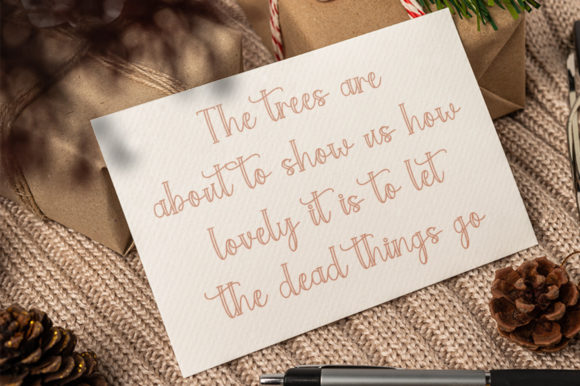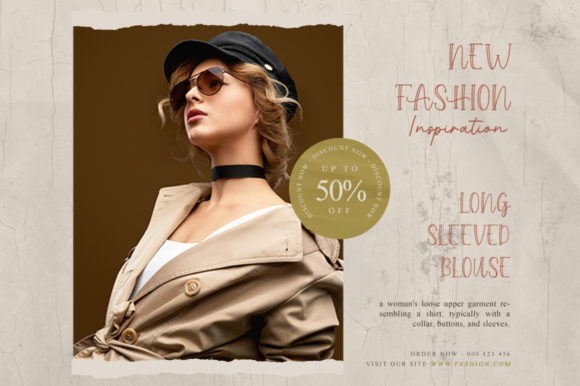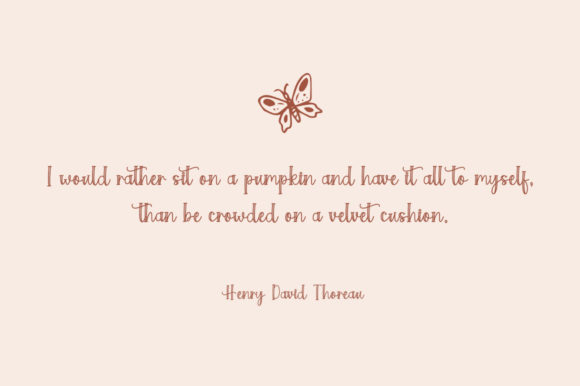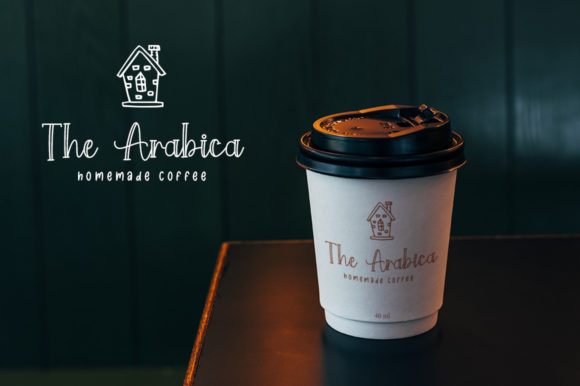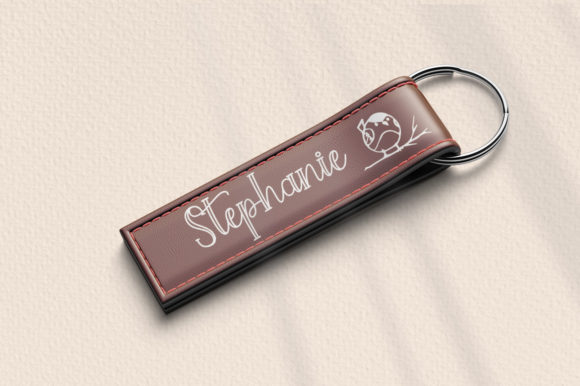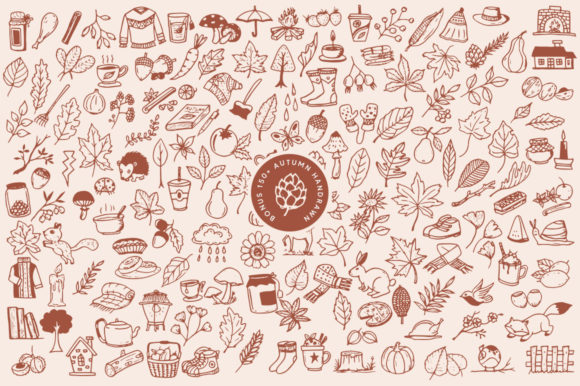
Introducing Autumn Garden Font: Add a Lovely Touch to Your Designs
Are you looking for a font that can add a playful and cool touch to your designs? Look no further than the Autumn Garden Font. This amazing display font is perfect for cartoon-related designs, children’s games, and any creation that requires a lovely and whimsical feel. In this article, we’ll explore the features and benefits of the Autumn Garden Font and how it can elevate your designs to the next level.
What is Autumn Garden Font?
Autumn Garden Font is a modern display font that is designed to bring a sense of playfulness and fun to your designs. Its unique and quirky style makes it perfect for designs that require a personal touch. The font is carefully crafted with beautiful lines and curves, making it highly legible and easy to read.
Key Features of Autumn Garden Font
• Playful and Cool Design: The Autumn Garden Font has a unique and playful design that is sure to grab attention. Its cool and whimsical style makes it perfect for designs that require a fun and lively feel.
• Highly Legible: The font is carefully designed with beautiful lines and curves, making it highly legible and easy to read.
• Perfect for Cartoon-Related Designs: The Autumn Garden Font is perfect for cartoon-related designs, children’s games, and any creation that requires a lovely and whimsical feel.
Benefits of Using Autumn Garden Font
Using the Autumn Garden Font can bring numerous benefits to your designs. Here are some of the advantages of using this amazing font:
• Adds a Personal Touch: The Autumn Garden Font can add a personal touch to your designs, making them stand out from the crowd.
• Increases Engagement: The playful and cool design of the font can increase engagement and grab attention.
• Perfect for Branding: The font is perfect for branding and can be used to create a unique and memorable brand identity.
• Versatile: The Autumn Garden Font can be used for a wide range of designs, from children’s games to adult-oriented creations.
Design Ideas Using Autumn Garden Font
The Autumn Garden Font can be used for a wide range of designs. Here are some design ideas to get you started:
• Children’s Games: Use the Autumn Garden Font to create fun and engaging children’s games.
• Cartoon-Related Designs: Use the font to create cartoon-related designs, such as character designs and animations.
• Branding: Use the font to create a unique and memorable brand identity.
• Invitations: Use the font to create fun and playful invitations for parties and events.
In conclusion, the Autumn Garden Font is a cool and playful display font that can add a lovely touch to your designs. Its unique and quirky style makes it perfect for cartoon-related designs, children’s games, and any creation that requires a whimsical feel. With its highly legible design and ease of use, the Autumn Garden Font is perfect for designers and crafters of all levels.